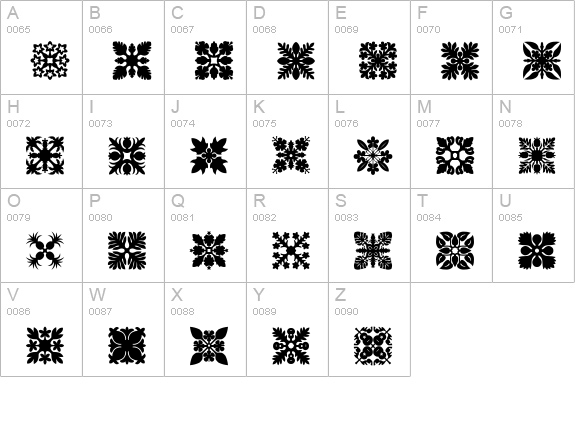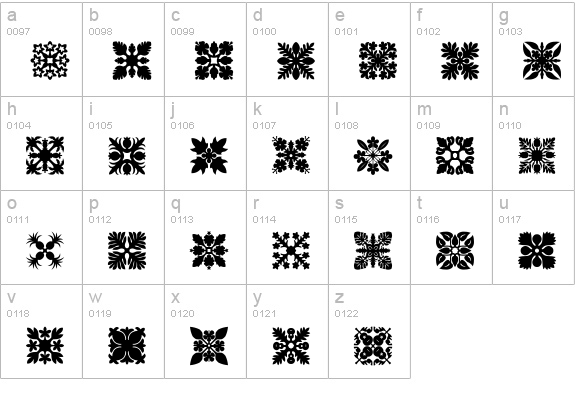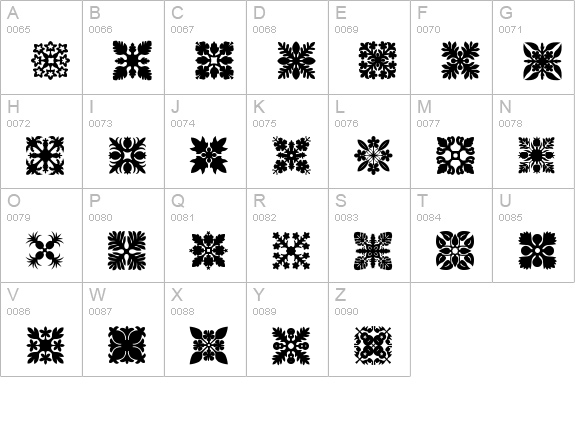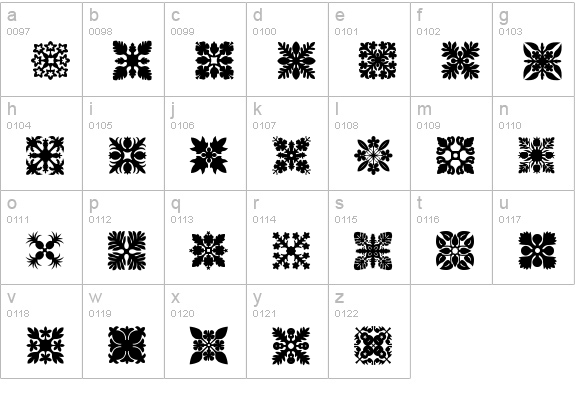
Hawaiian Quilt1 is a beautifully designed font that captures the essence of the tropical paradise that is Hawaii. Its intricate and delicate letterforms are inspired by the traditional art of Hawaiian quilting, known for its vibrant colors and intricate patterns. Each letter is meticulously crafted to resemble the stitches of a quilt, creating a unique and eye-catching typographic experience. This font is a perfect choice for adding a touch of aloha to your designs. Whether you're creating wedding invitations, branding materials, or simply want to infuse your projects with a sense of island charm, Hawaiian Quilt1 will not disappoint. Its flowing curves and elegant lines evoke a sense of relaxation and joy, transporting you to the sunny shores of Hawaii with every letter. What's even better is that Hawaiian Quilt1 is freely available to download at FontsMarket.com. Yes, you read that right – this stunning font can be yours at no cost. So why wait? Download Hawaiian Quilt1 today and let its beauty and uniqueness elevate your designs to new heights. Whether you're a professional designer or a DIY enthusiast, this font is sure to impress with its impeccable craftsmanship and unmistakable Hawaiian flair. Don't miss out on this opportunity to add a touch of paradise to your projects. Embrace the spirit of aloha with Hawaiian Quilt1 and watch as your designs come alive with the warmth and beauty of the Hawaiian Islands.